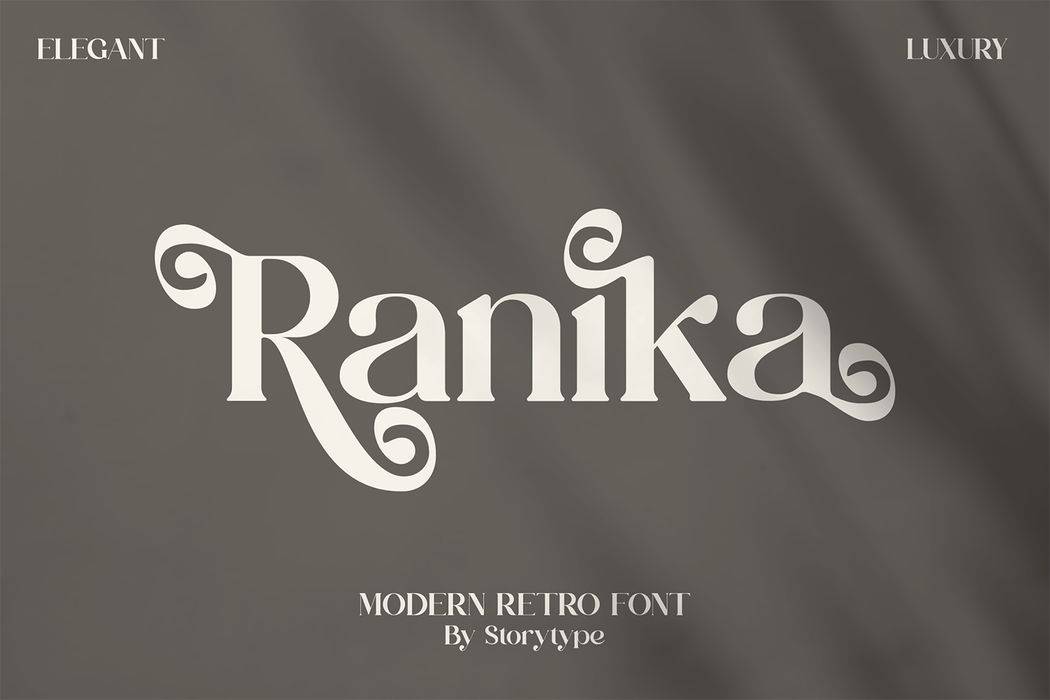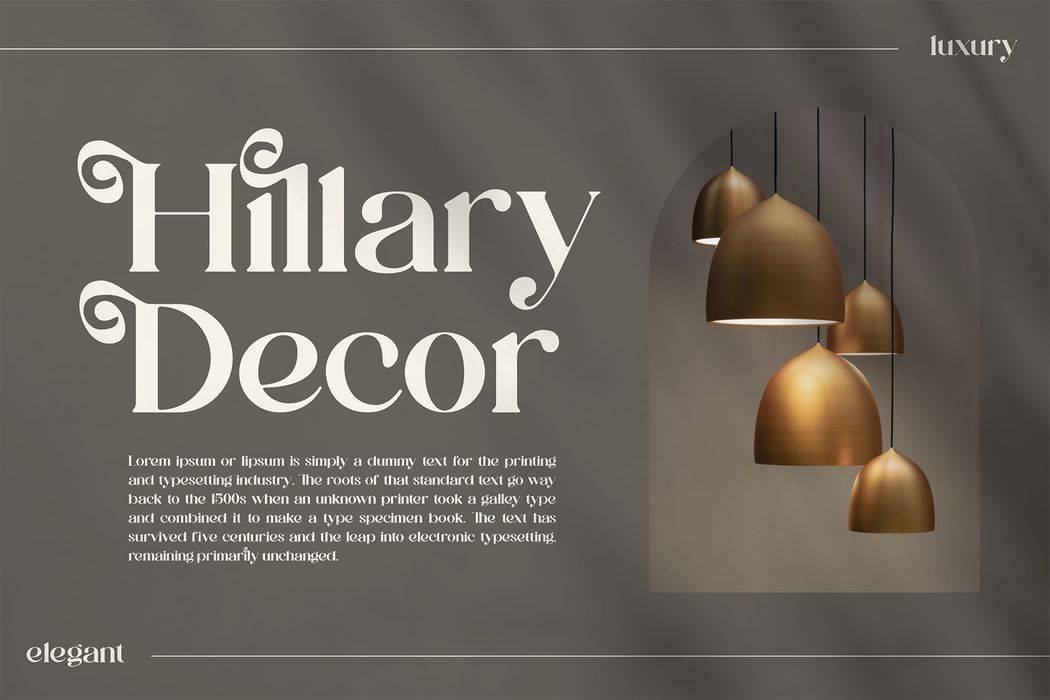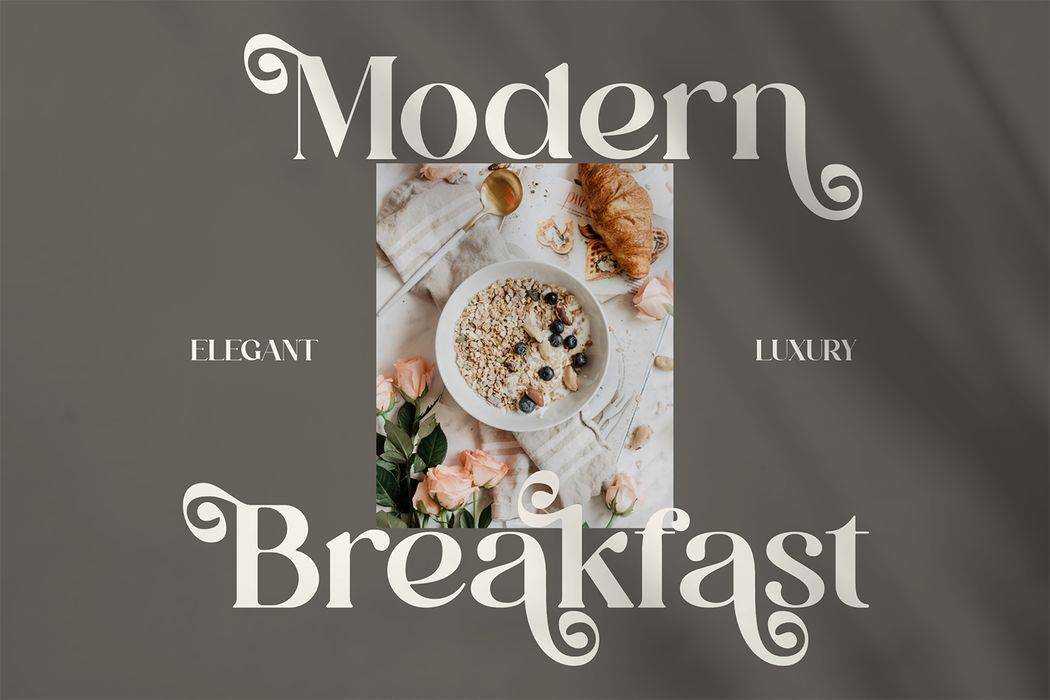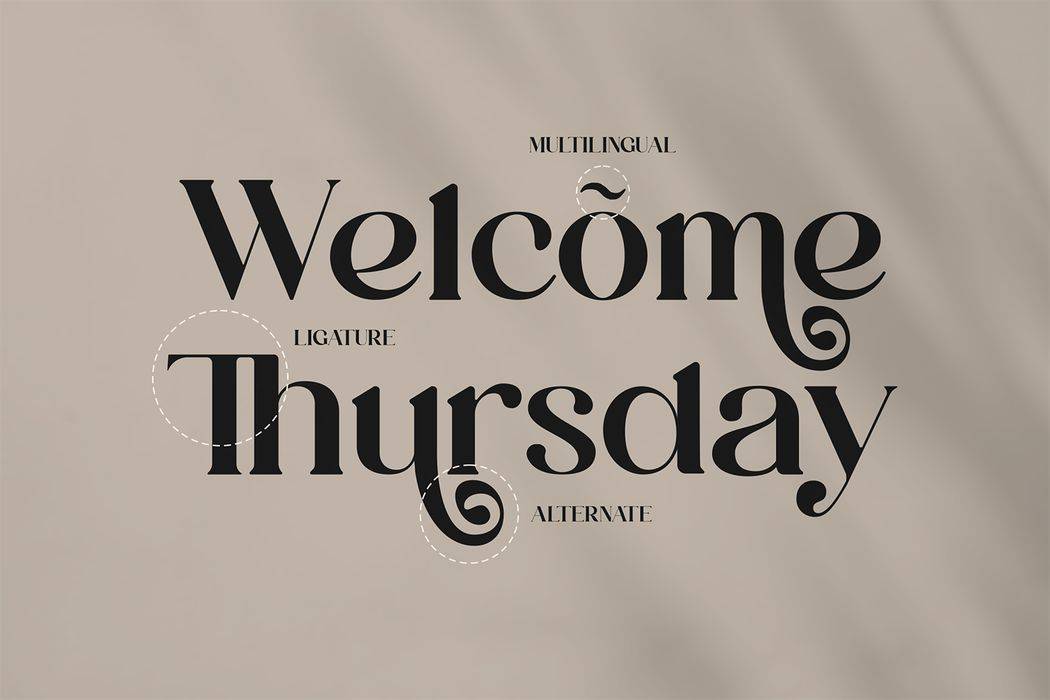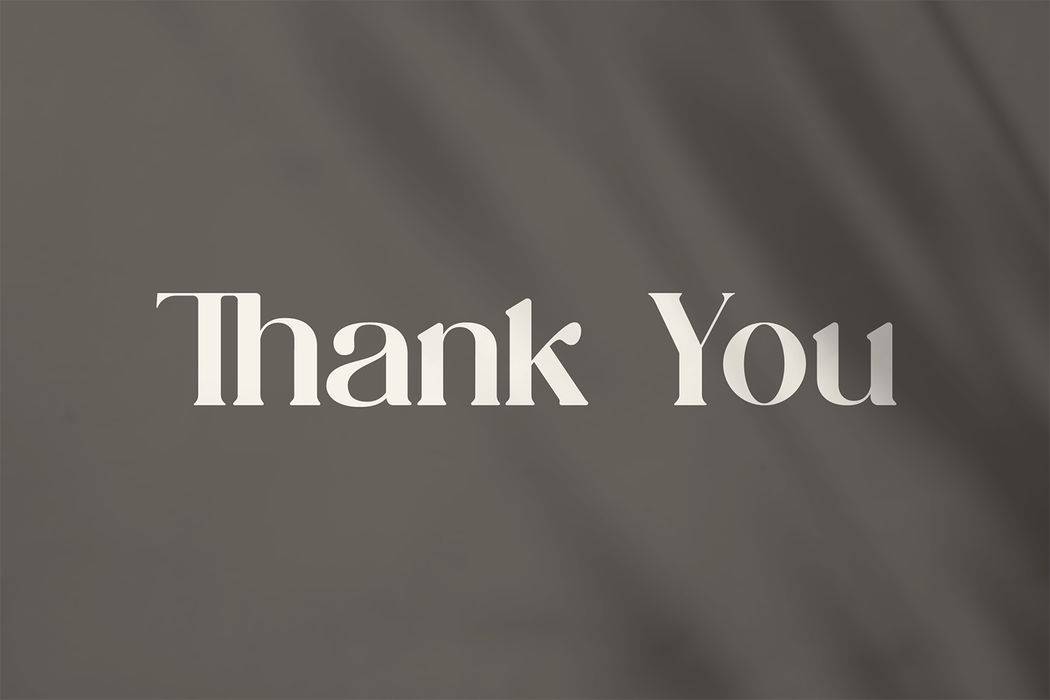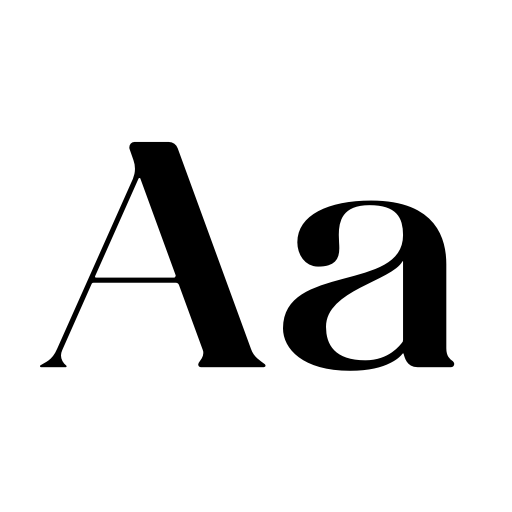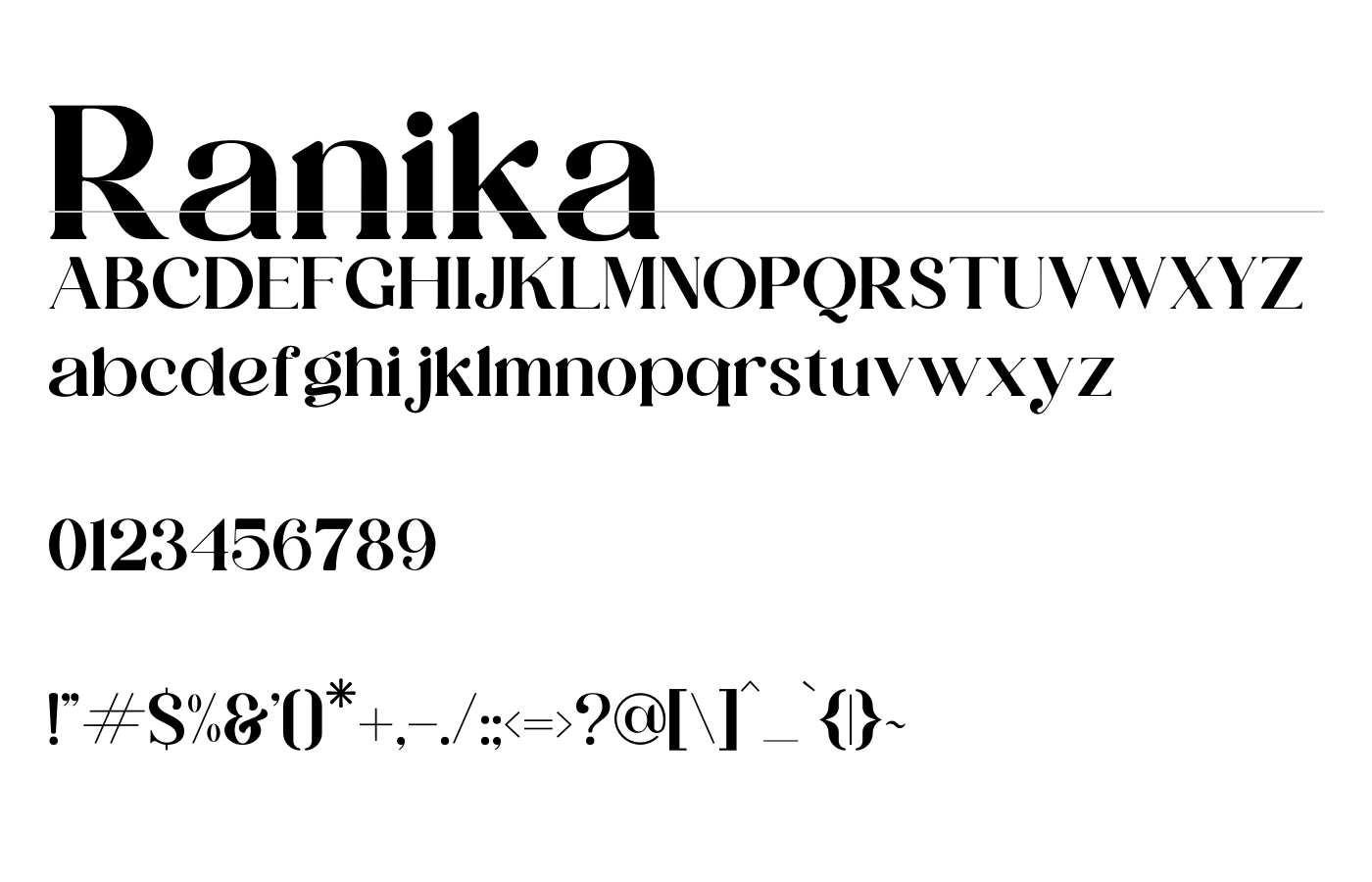
Ranika is a refined serif font with a high contrast between thick and thin strokes, featuring elegant bracketed serifs and a classic yet modern feel. Its distinctive letterforms, including single-story ‘a’ and unique tail on ‘Q,’ lend sophistication, making it ideal for luxury branding, editorial headlines, and stylish logos. Ranika’s clean structure and balanced spacing ensure it stands out while maintaining readability in upscale design contexts.
Ranika Font
About Ranika Font